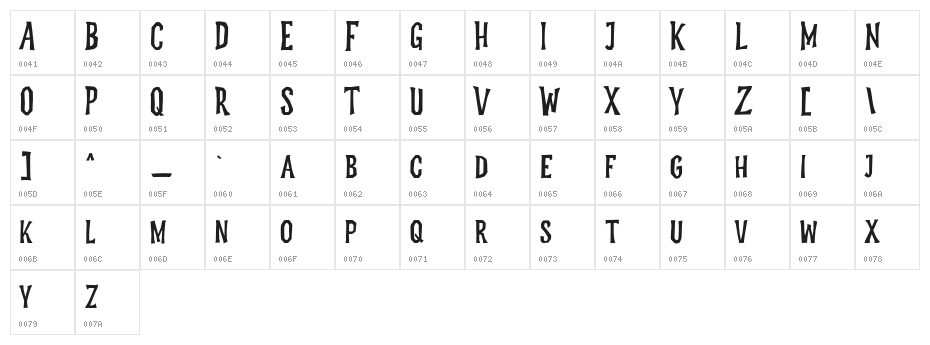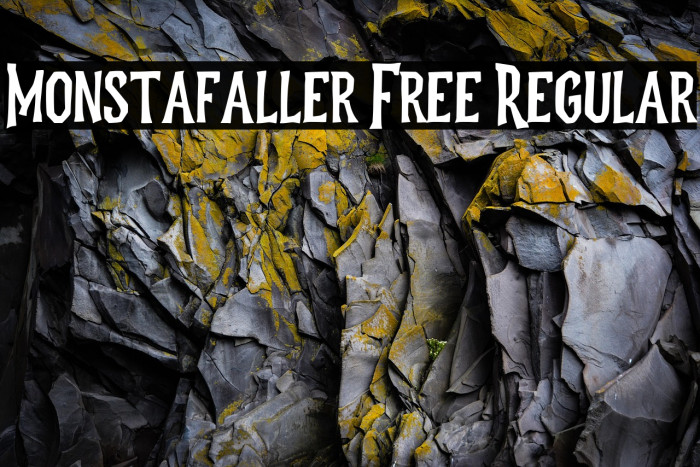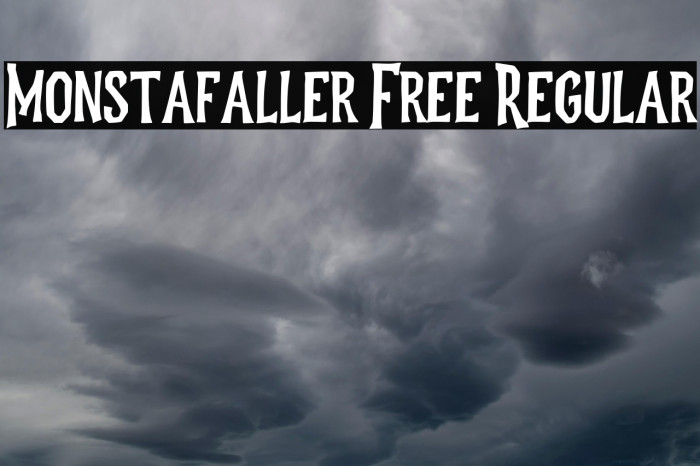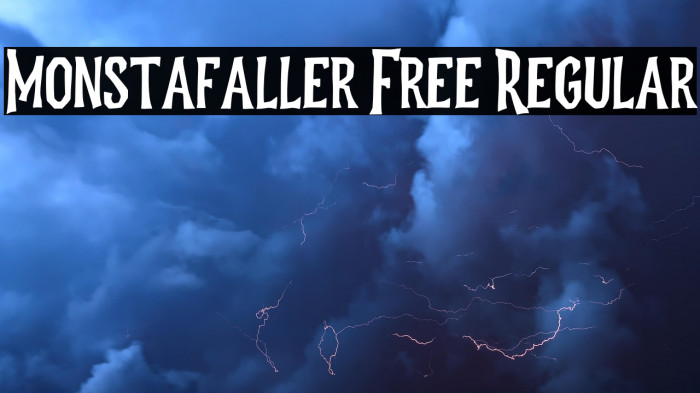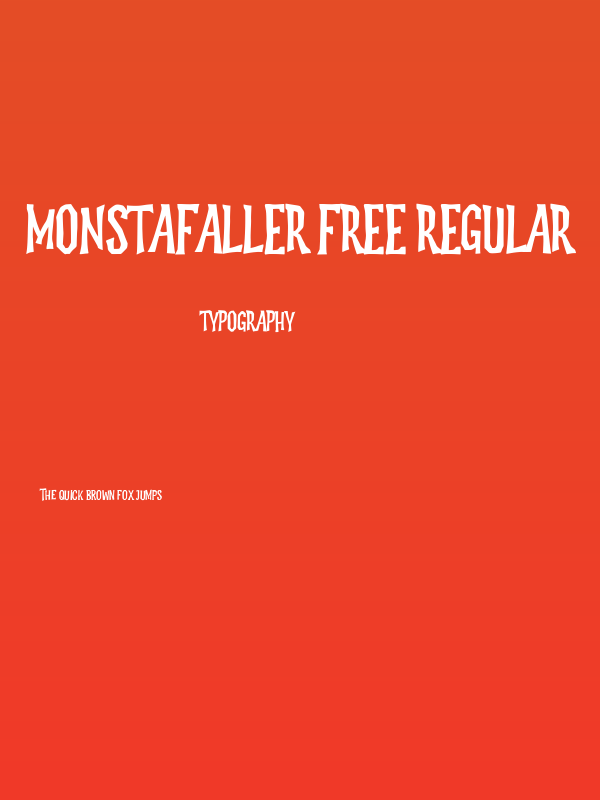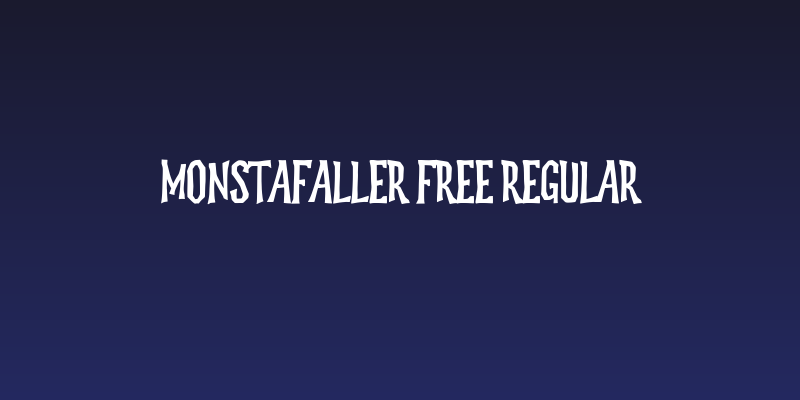
Monstafaller Free Regular Font
Monstafaller Free Regular Description
This font features a bold and dynamic style with a slightly irregular, hand-drawn appearance. The characters have a playful, energetic vibe, with varying stroke widths that give it a lively and informal look. The uppercase letters are particularly striking, with exaggerated angles and curves that create a sense of movement. This font is ideal for projects that require a fun and engaging aesthetic, such as posters, event flyers, or children's book covers. Its unique style makes it stand out, adding a touch of personality and flair to any design.
| Overall Style | Playful, Energetic, Hand-drawn |
| Proposed Projects | Ideal for posters, event flyers, children's book covers, and other playful designs. |